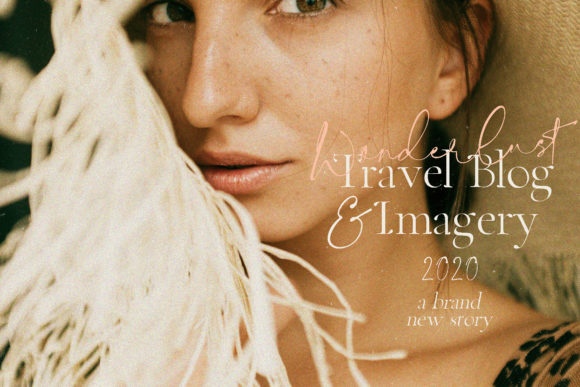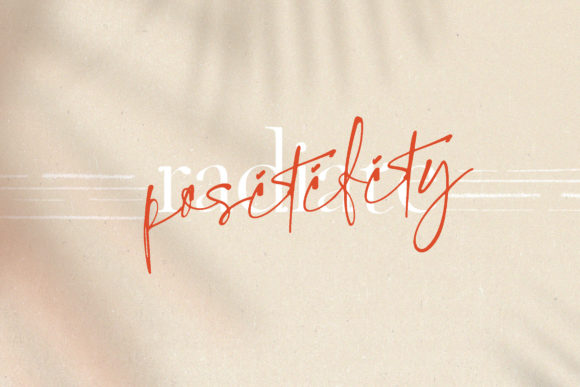
Sally Morrison Duo Font
db-ku.com - Script & Handwritten -- Sally Morrison duo is a match made in heaven, the swashes of the script perfectly complements the serif’s style. Combining these two fonts on your next design will give your next design a modern and sophisticated feel.